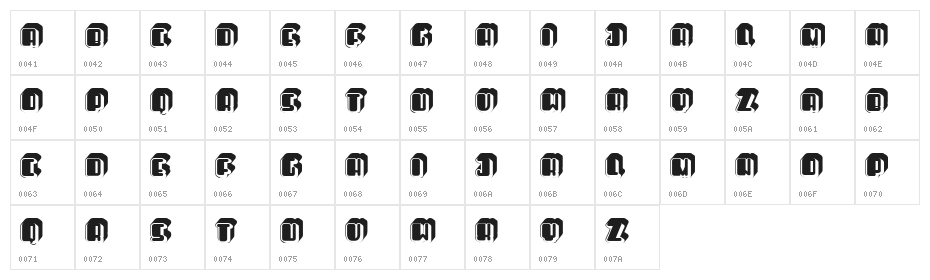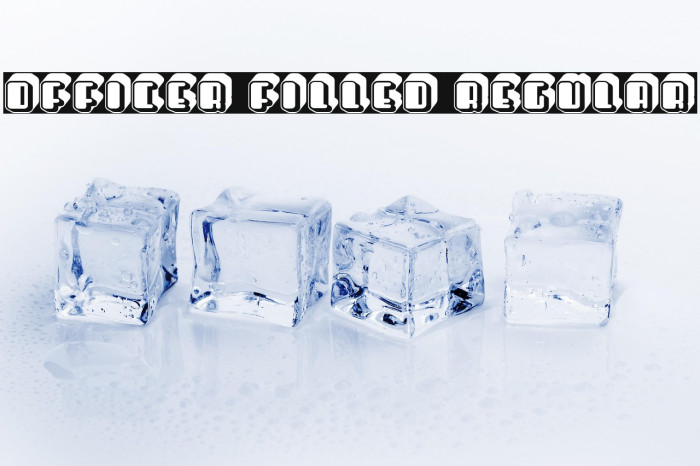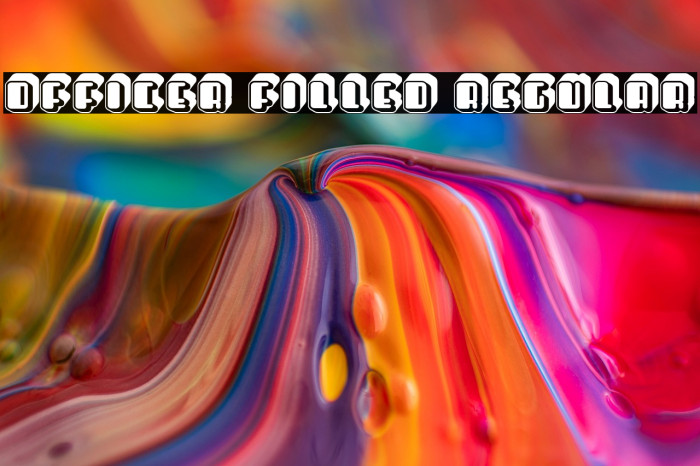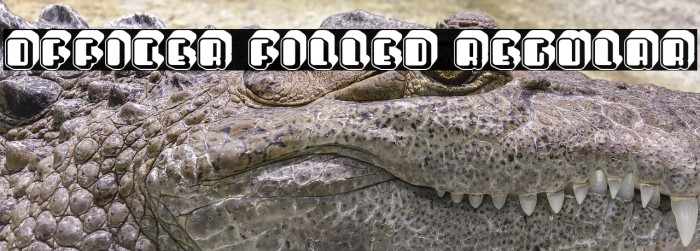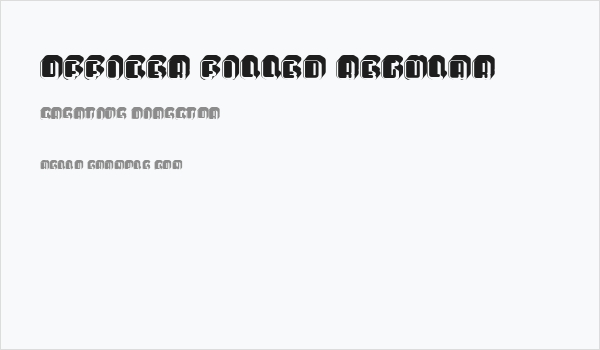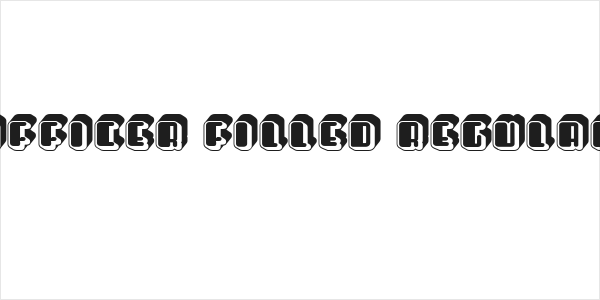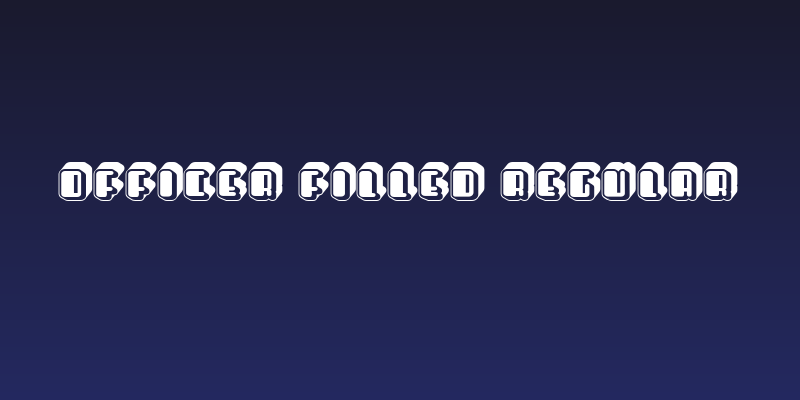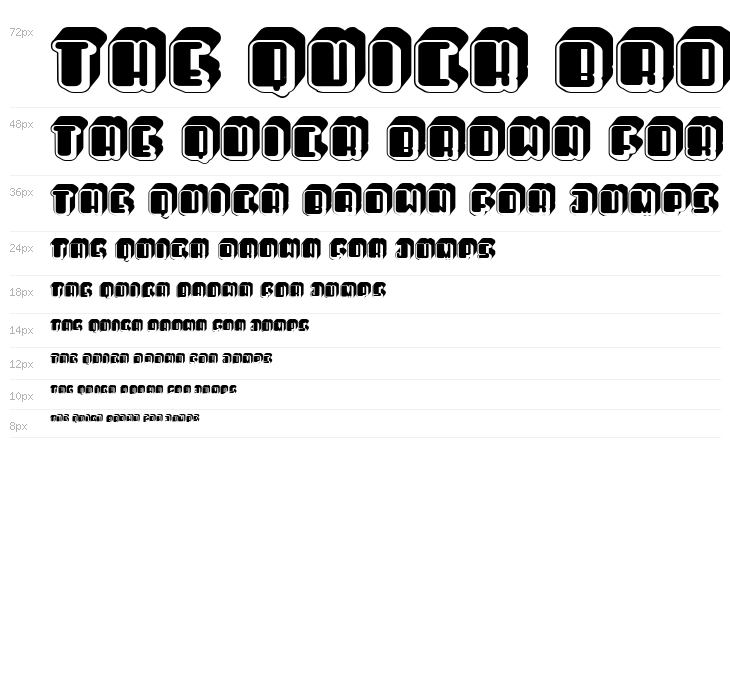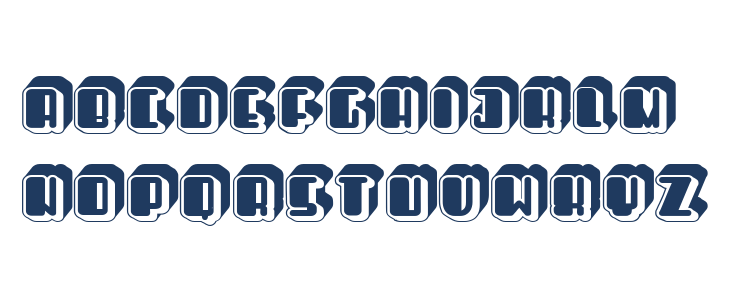
Officer Filled Regular Font
Officer Filled Regular Description
This font features a bold, geometric design with a three-dimensional effect, created by a thick black outline that gives each character a shadowed appearance. The letters are uppercase and have a blocky, angular style, reminiscent of industrial or architectural elements. The interior of each character is filled with a solid color, enhancing the boldness and visibility. This style is consistent across the alphabet, numbers, and special characters, making it suitable for impactful and eye-catching designs.